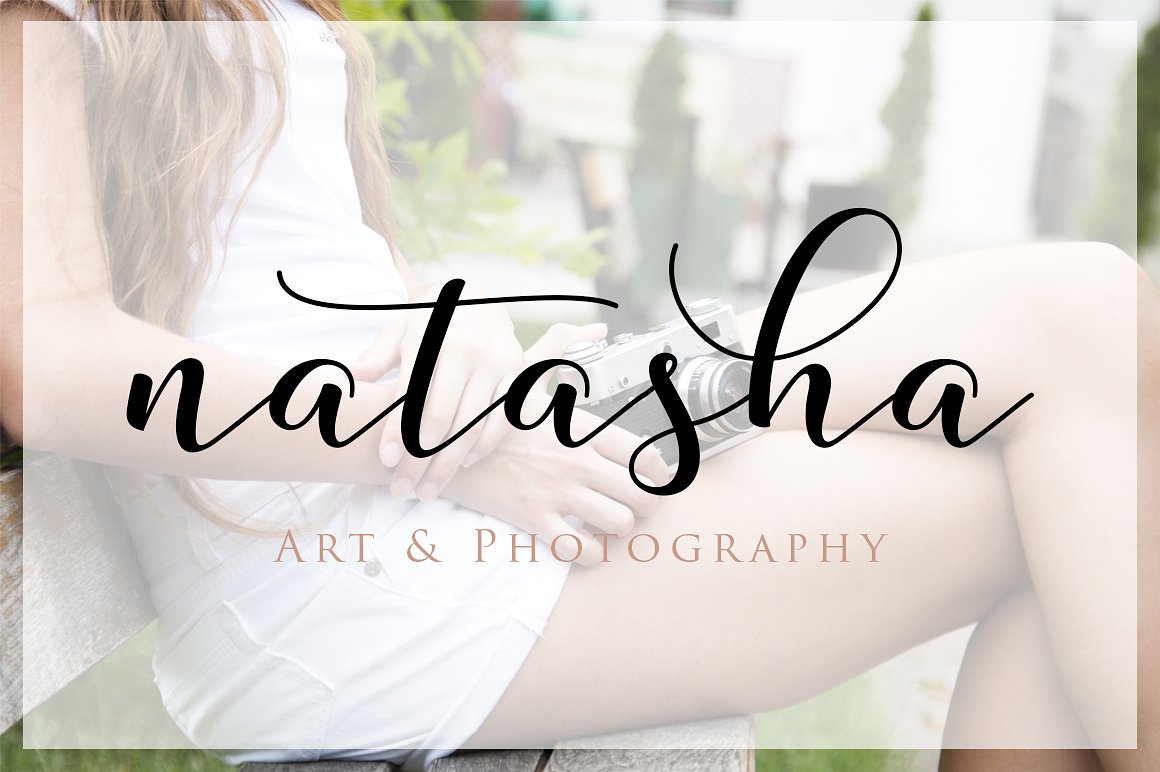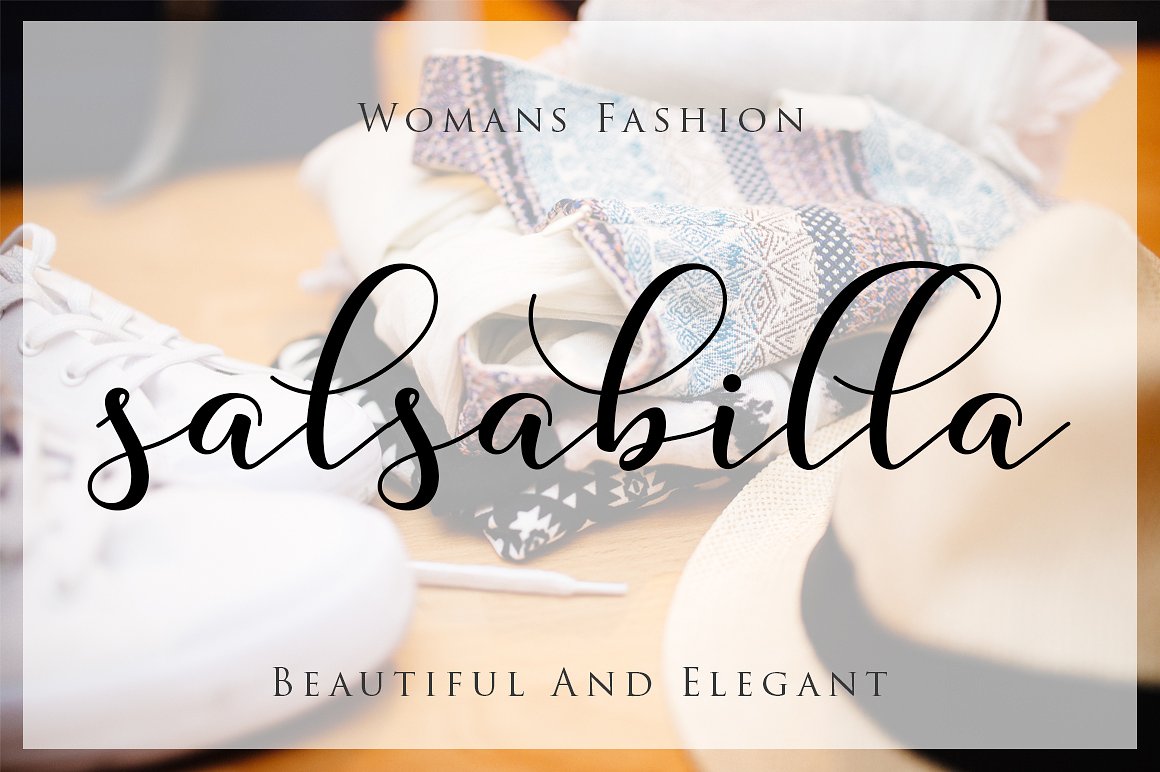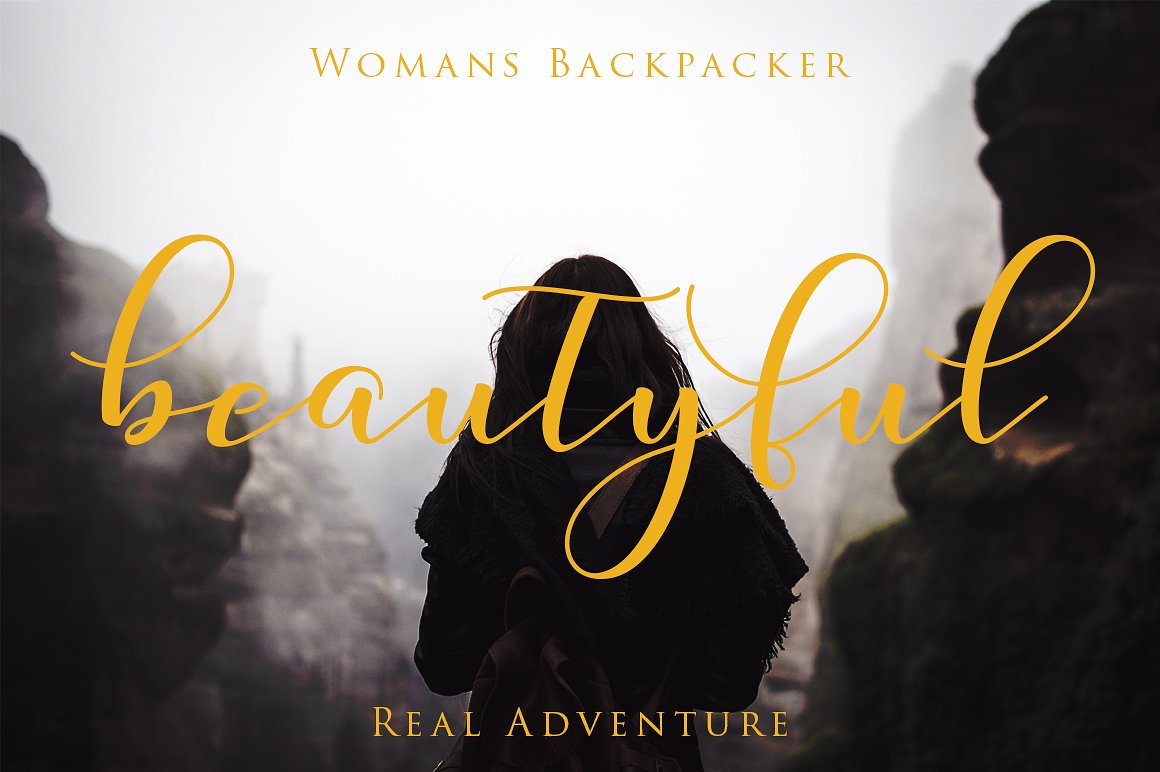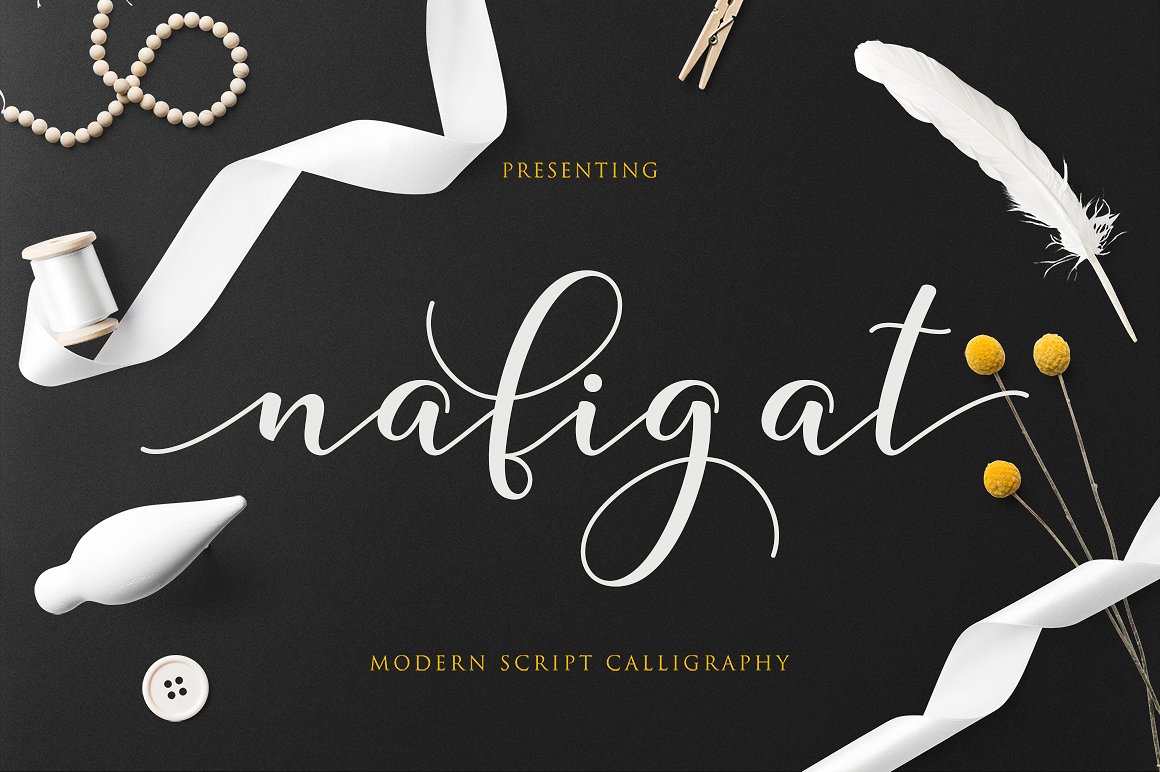
Nafigat Script Font
Hello world..!! A new modern script calligraphy: Nafigat Font! Nafigat goes with Romantic and Modern Calligraphy, ready to give your design project with Fresh and Fabulous Style. This font have an 264 Standard Glyph + 408 Glyph Alternate in Open Type Standard Format.
Perfect for wedding, branding and romantic invitation and Also Suitable for various purpose such as digital lettering, headings, logos, wedding invitation, t-shirt, letterhead, signage, lable, news, posters, badges, branding materials, t-shirt, print, business cards, quotes, logo, poster, and suitable for any graphic design project.